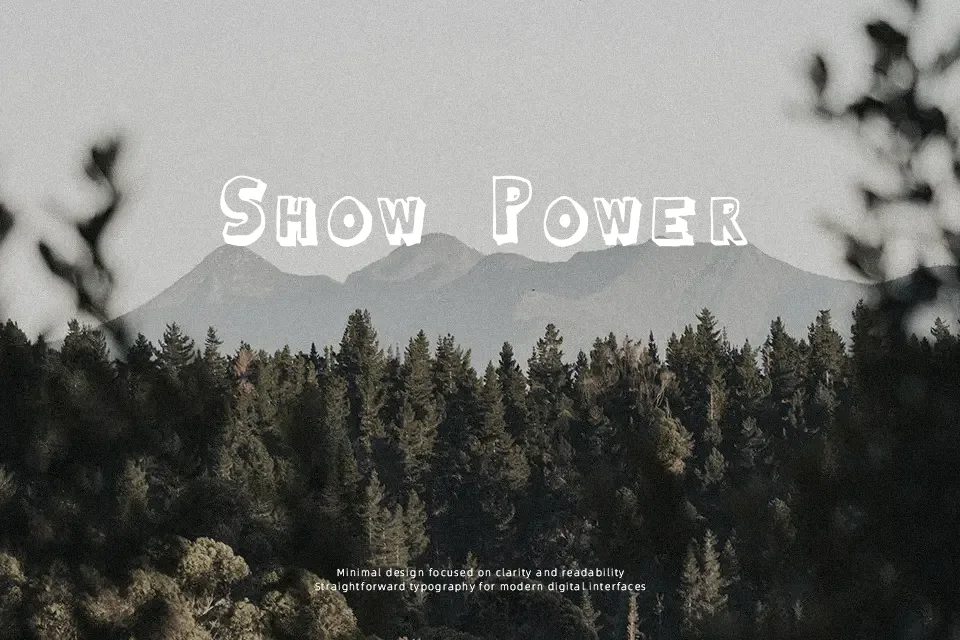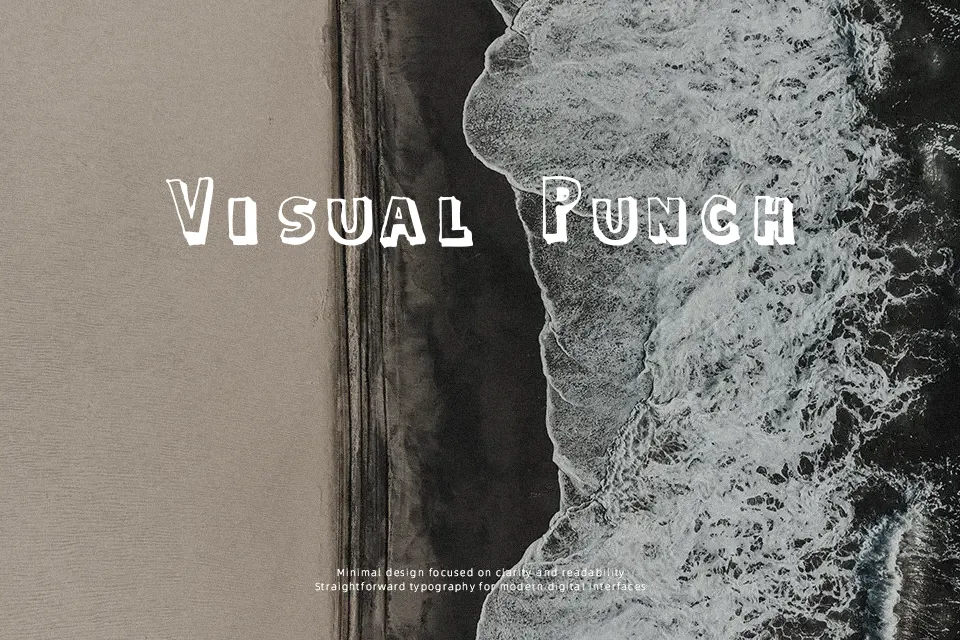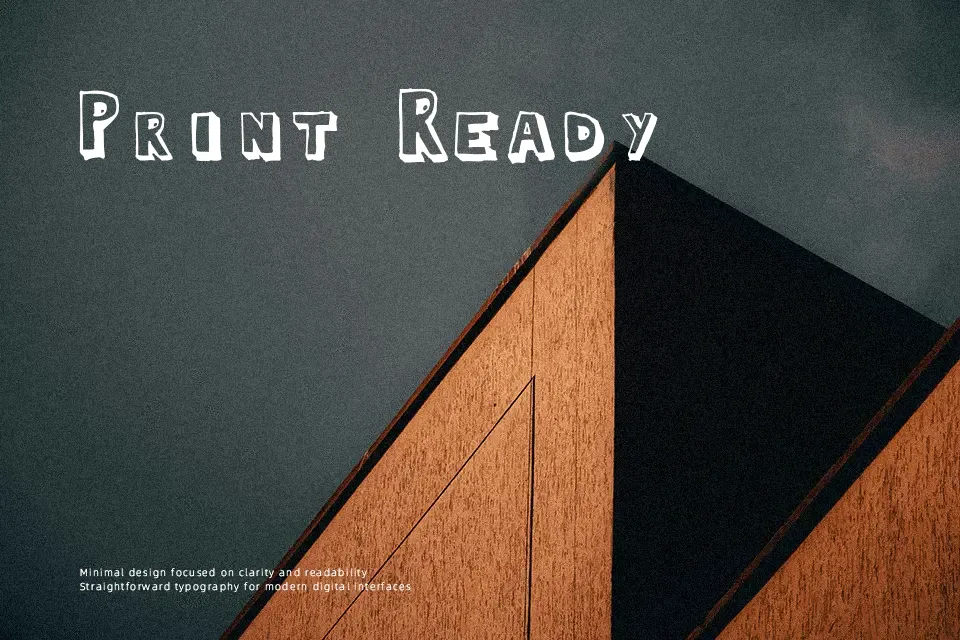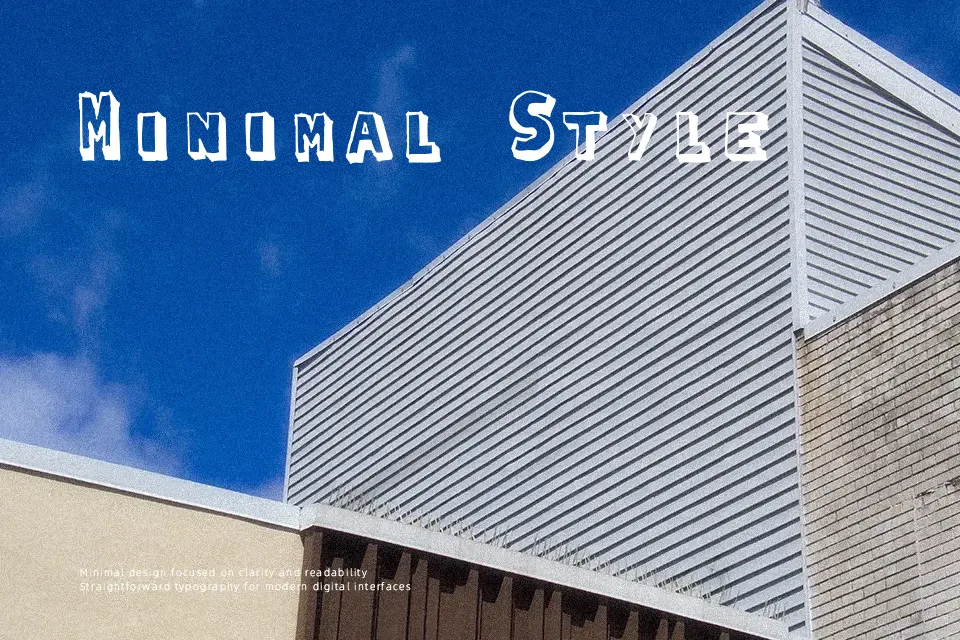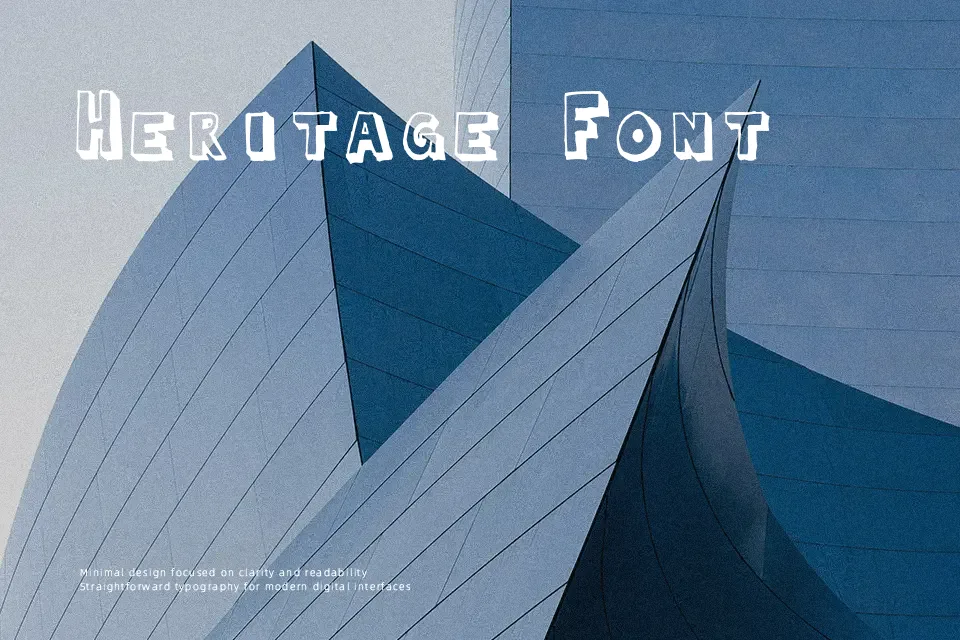
Blocked In Font
Designed by Emily McKeithen
Blocked In is a distinctive hand-drawn display typeface that mimics the look of sketched, hollow block letters. Its thick, uneven outlines and slightly distressed texture give the font a raw, unfinished charm. The varying stroke weights and irregular spacing contribute to an undeniably casual, DIY-inspired aesthetic. This typeface excels in creative projects that demand an edgy, handcrafted vibe, such as indie band merchandise, grunge-inspired event posters, and bold streetwear graphics. While it delivers strong visual impact in large headlines, the hollow, sketchy structure makes it entirely unsuitable for long paragraphs or small digital displays where legibility is crucial. Compared to standard geometric block designs, Blocked In offers a much more organic, rebellious personality.
Indie music posters and album artwork
Streetwear apparel and merchandise graphics
Edgy, DIY-inspired casual branding
Lengthy body text or editorial paragraphs
Corporate identities requiring a polished aesthetic
Small-scale digital UI elements
Perfect for advertising, branding, and fashion, with a artistic and decorative style.